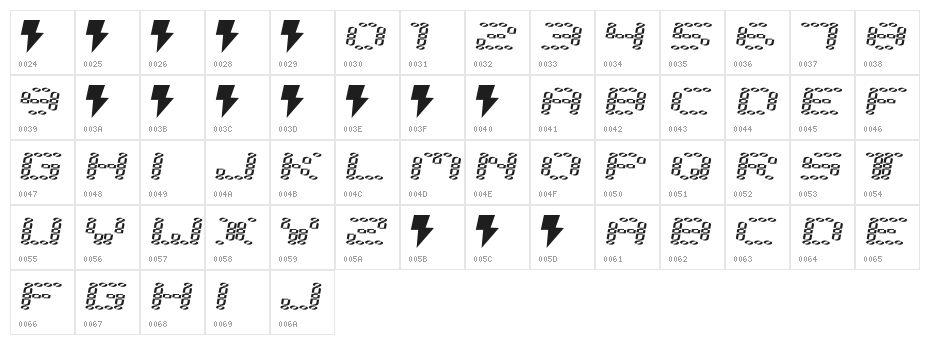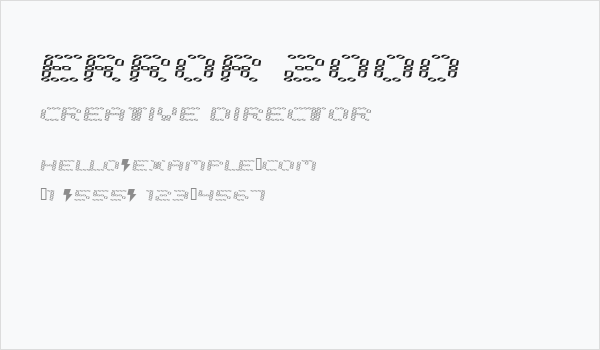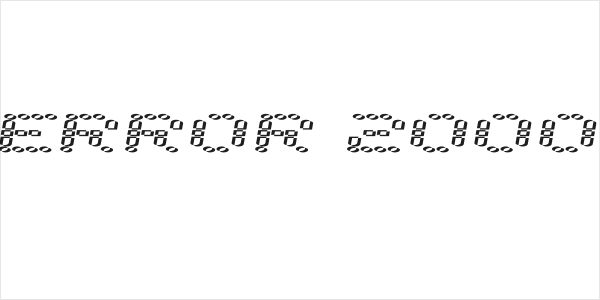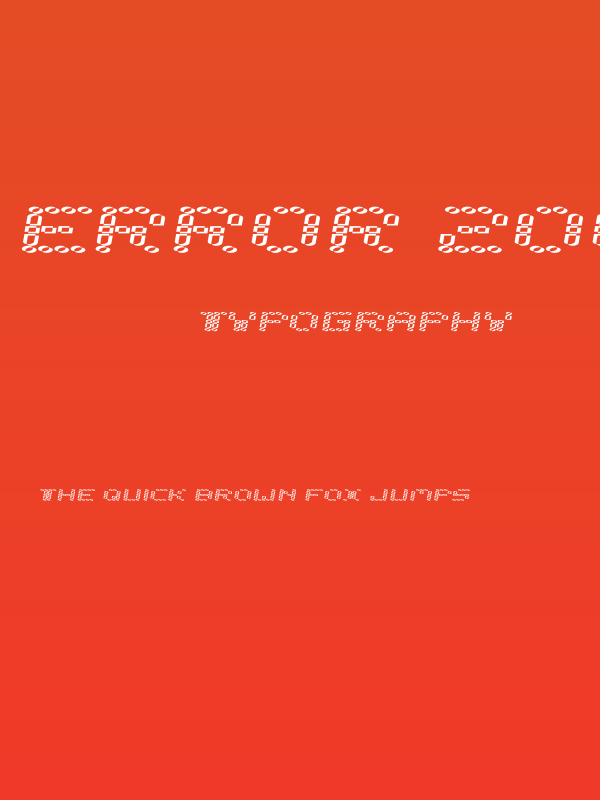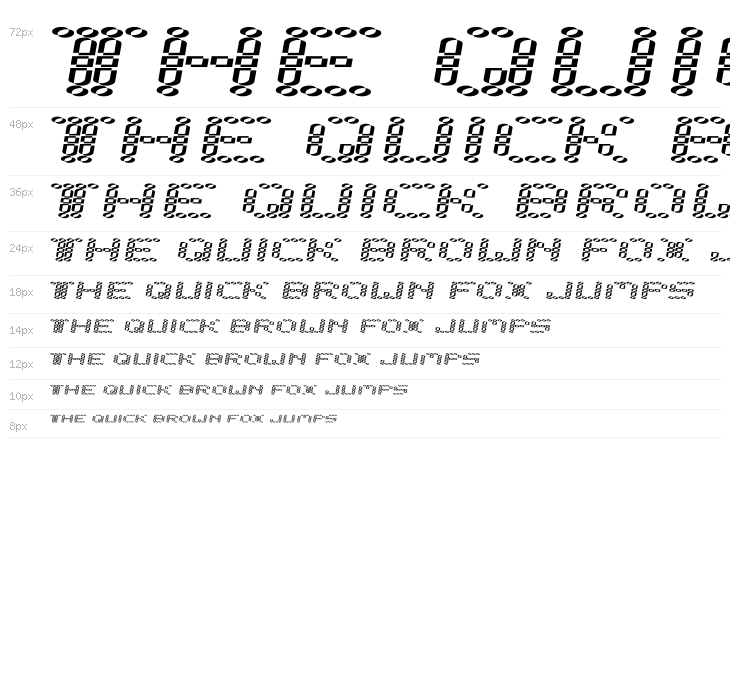
error 2000 Font
error 2000 Description
This font features a unique, digital-inspired design that mimics the appearance of LED or dot matrix displays. Each character is composed of small, rounded dots arranged in a grid, giving it a distinct, retro-futuristic look. The uppercase and lowercase letters, as well as numbers, maintain a consistent style, with a uniform height and width that enhances readability. The special characters, including symbols like the lightning bolt, add a playful and dynamic element to the font. This style is reminiscent of early digital technology, making it ideal for projects that aim to evoke nostalgia or a tech-savvy aesthetic.
| Overall Style | Retro-Futuristic |
| Use Case | Headlines, Logos, Digital Displays |
| Proposed Projects | Ideal for digital displays, tech-themed branding, retro video games, and futuristic design projects. |